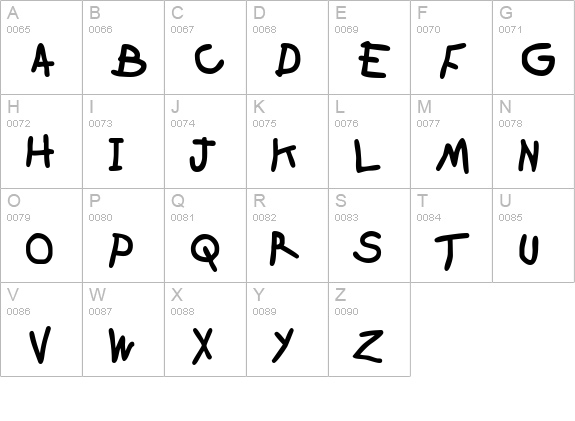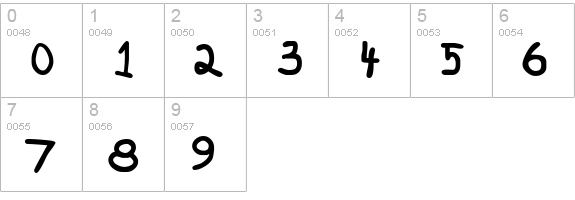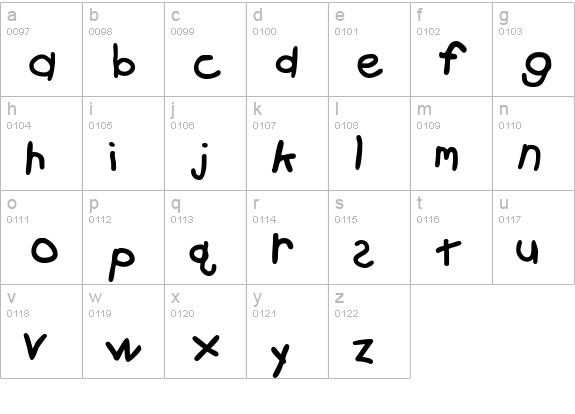
KidzOnlyTooSSK Bold Font Details
KidzOnlyTooSSK Bold is a strong, high-contrast variant in the KidzOnlyTooSSK typeface family \xE2\x80\x94 well suited to headlines, attention-grabbing titles, and strong calls-to-action.